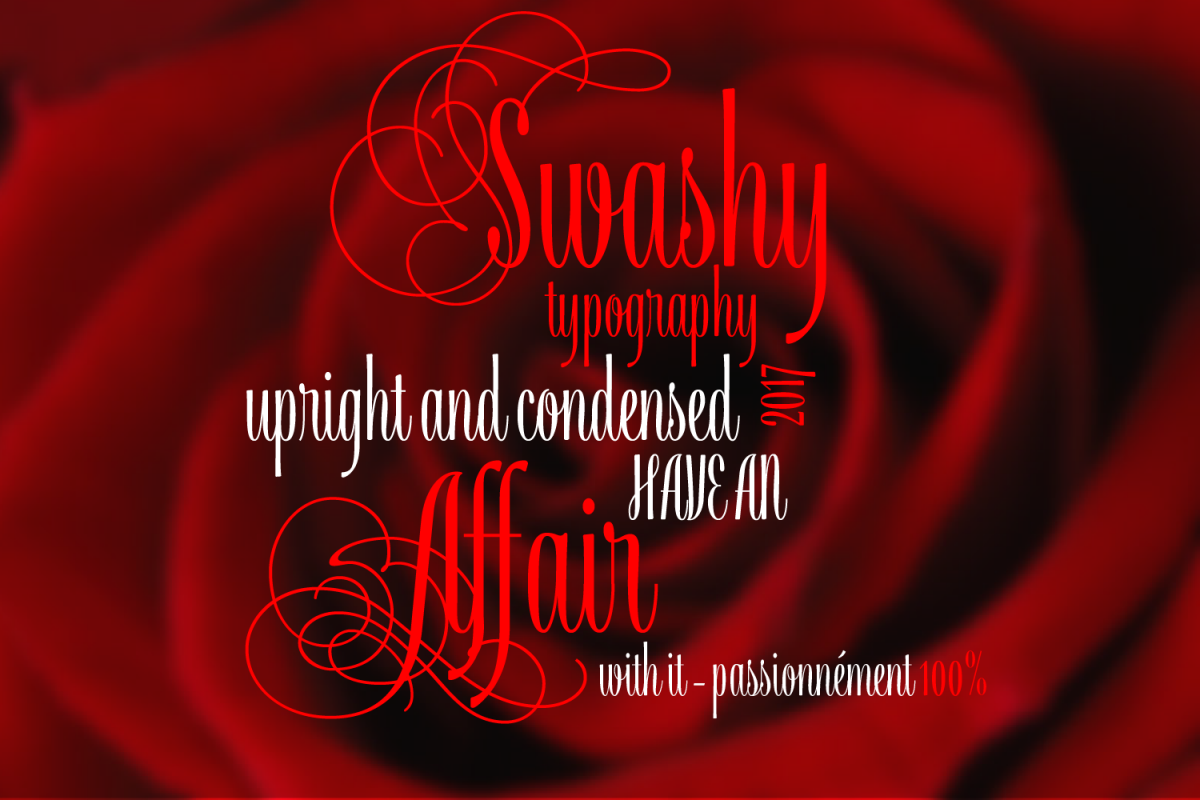
Athellia
An upright condensed formal script that is visually delightful. Athellia pays attention to the figure/ground relationship between the characters than most other scripts by borrowing from the Black Letter styles without the visual aggressiveness. It’s tangential connections flow like chocolate on ice cream.
Most formal scripts cannot set words in all caps that are legible. Athellia’s Cap letters fit nicely together and even many of the full set of swash caps connect to the lower case letters comfortably. Its rhythm and grace is right at home on packaging, labels, Menus, Headlines, invitations, and title design. This is a distinctive font that fills a gap in the vast digital type libraries that are bereft of anything this formal and condensed and vertically oriented
Athellia